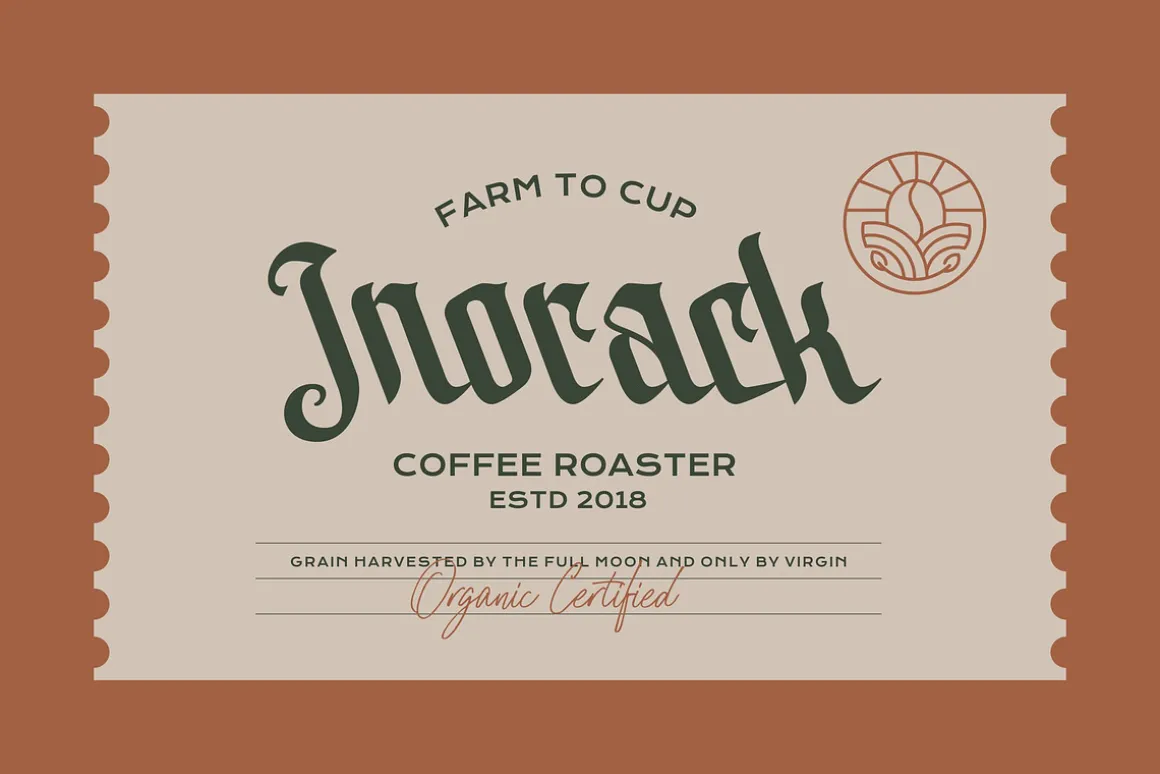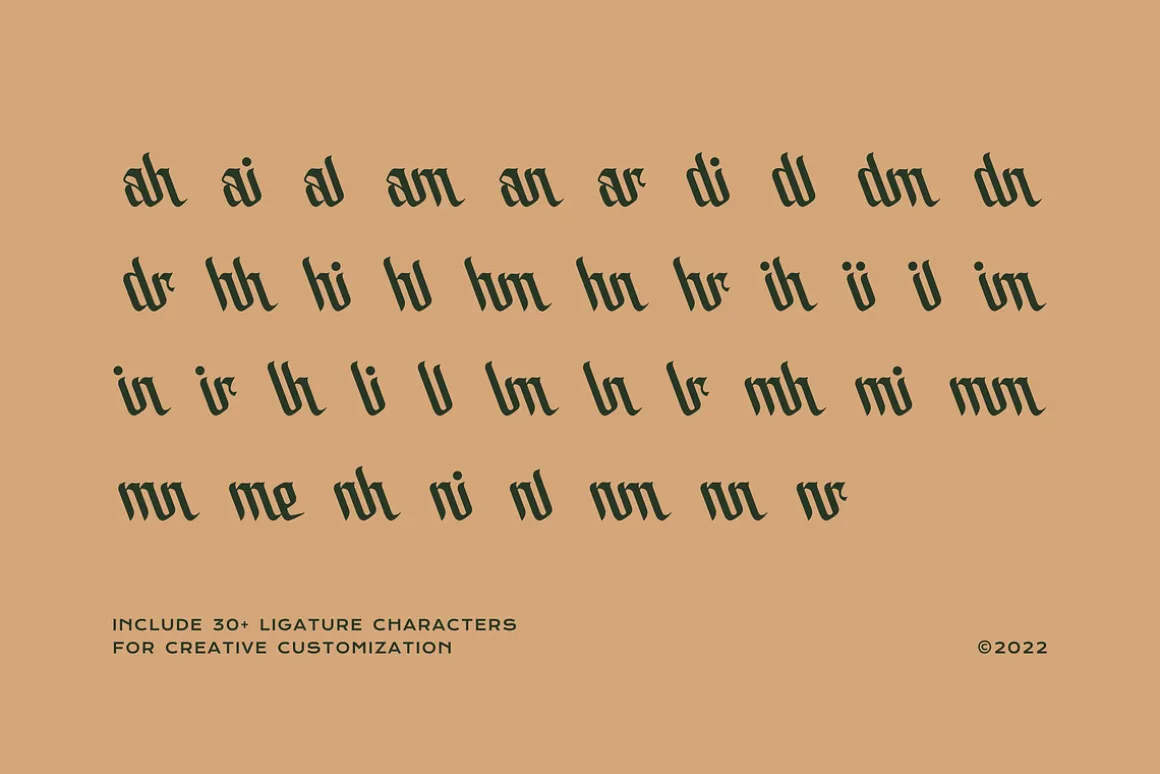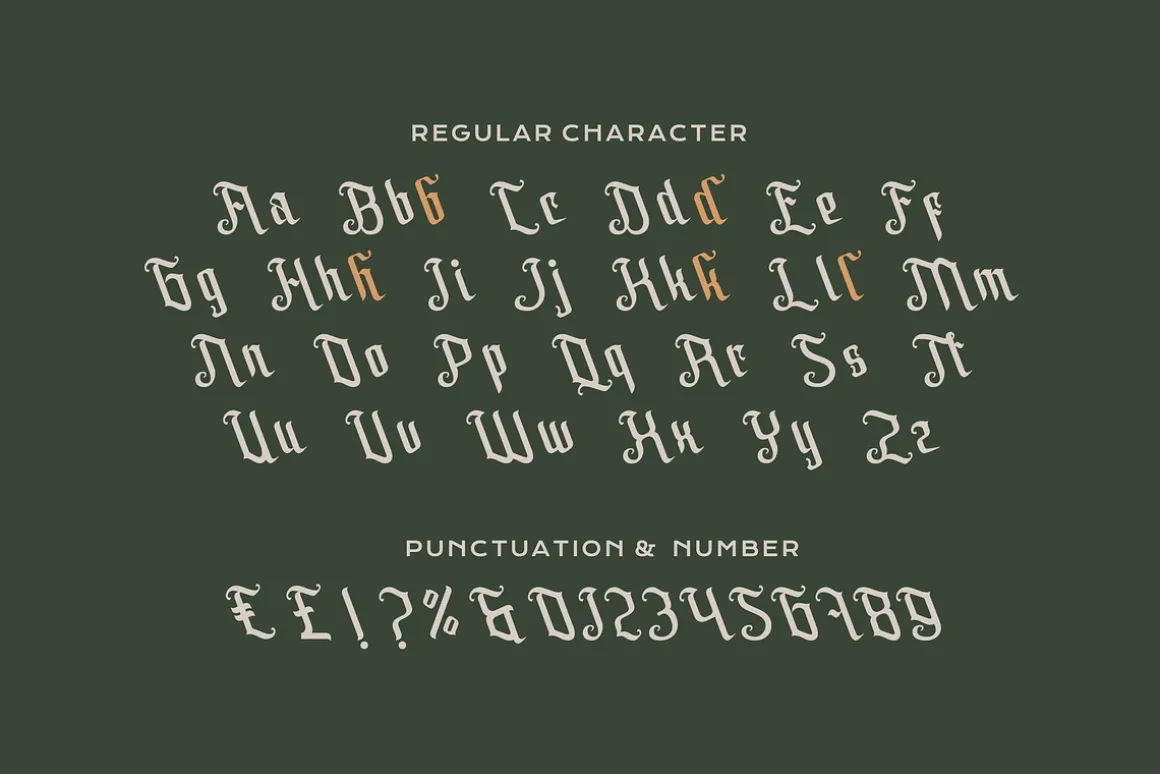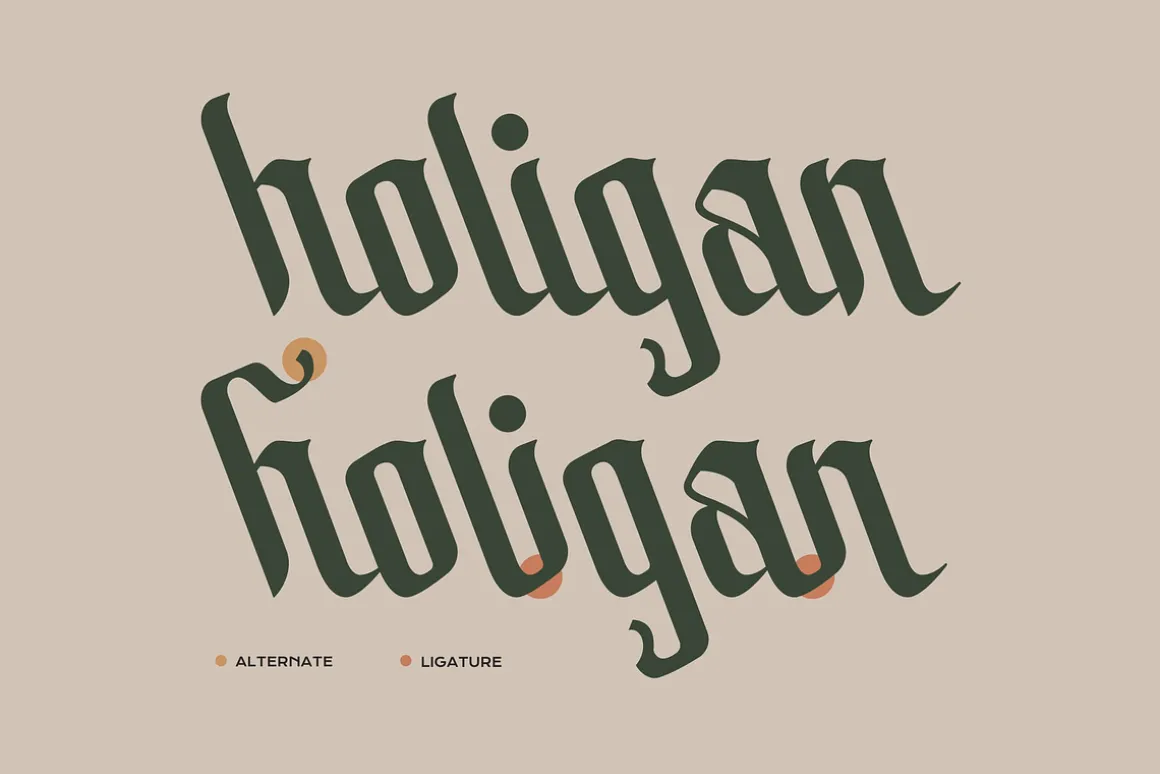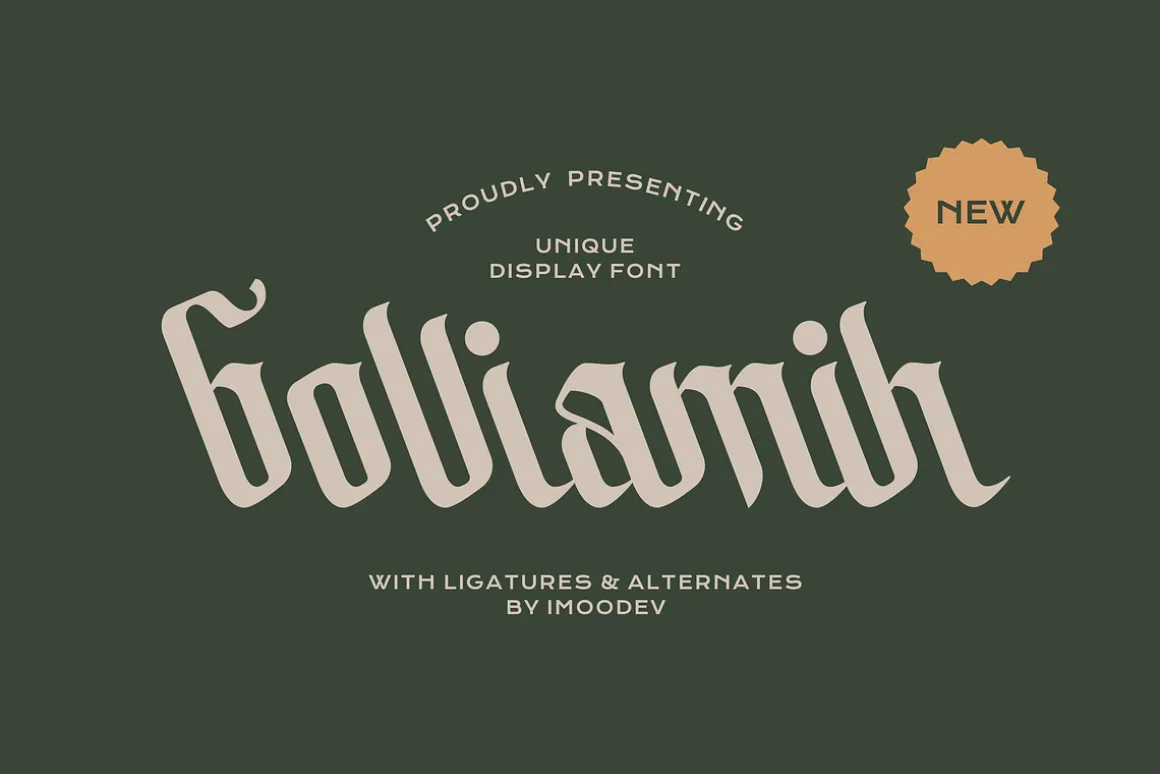
Step into creativity with Bolliamih is a medieval script font, modern reinterpretation of blackletter tradition. This typeface balances vintage gothic charm with contemporary design sensibilities, making it the perfect choice for standout branding, posters, editorial titles, merchandise, and packaging.
Its sharp, elongated strokes and ornamental curves create a sense of authority, elegance, and edge, perfect for designers looking to make a statement.
- Uppercase and Lowecase Characters.
- Numerals and Punctuations.
- Alternates and Ligatures.
- Multilingual Support.